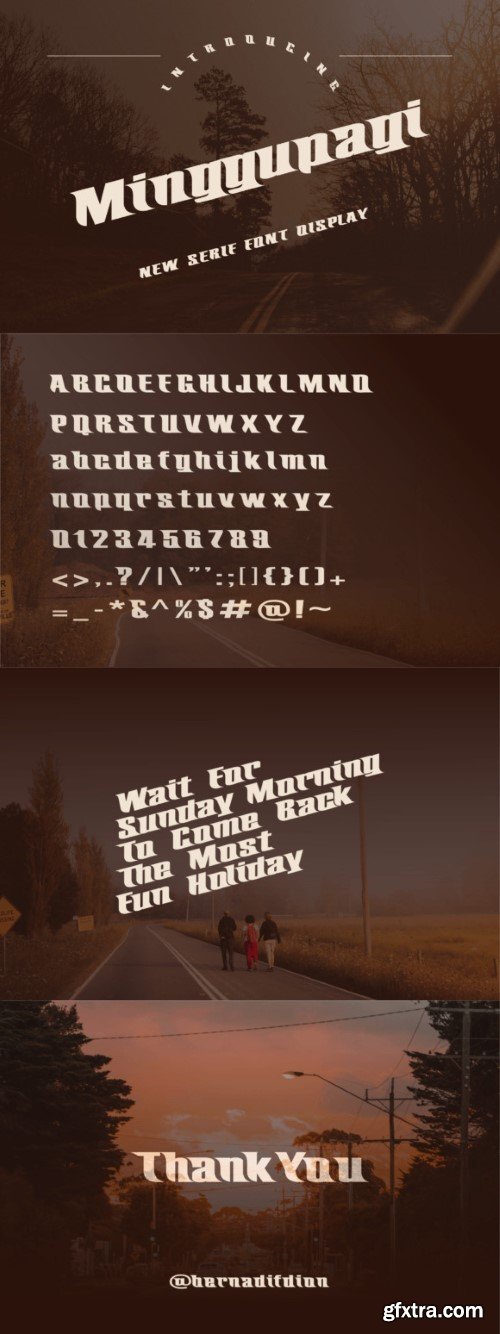
Minggupagi is a modern and fun display font that exudes energy and vibrancy. With playful curves and sleek lines, it adds a touch of whimsy to any design project. Perfect for headlines, posters, and branding materials, Minggupagi injects a youthful charm and creativity into every composition it graces.